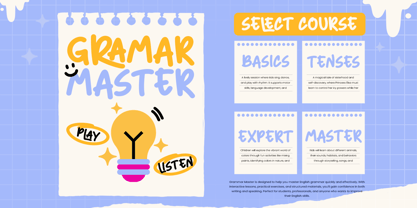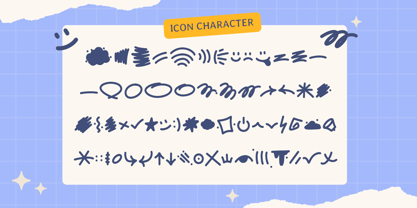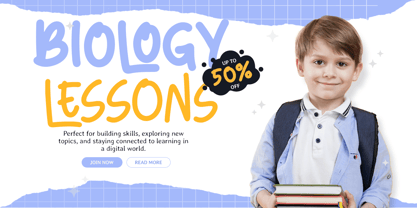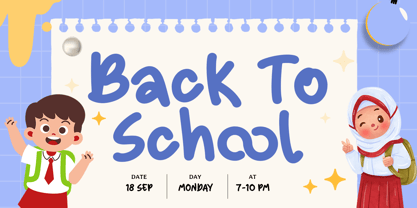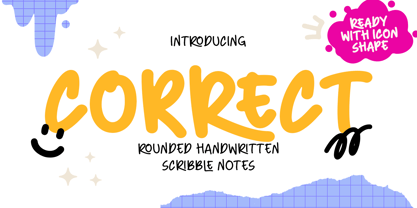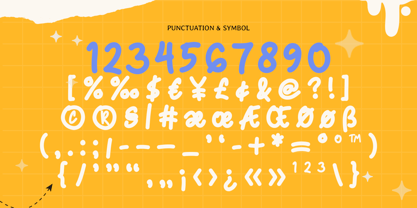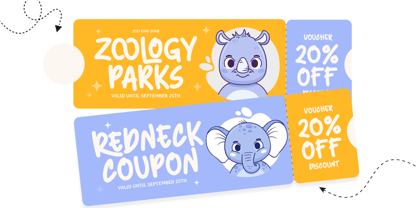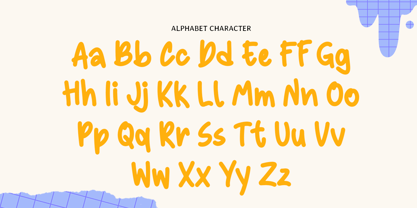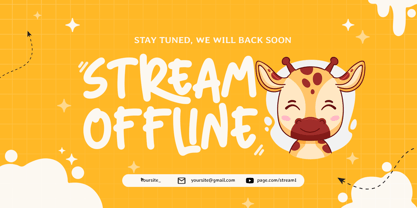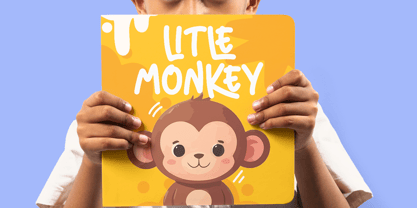
Correct
The Correct Font Family was designed by Zamroni Hamzah and published by Sensatype Studio. Correct contains 2 styles and family package options. More about this family
Correct is a rounded handwritten scribble notes font designed to feel natural, cozy, and full of personality. With soft rounded strokes and a spontaneous scribble rhythm, this typeface delivers an authentic handwritten vibe that’s perfect for everyday creativity and warm, friendly branding.
Made for notes, journaling, planners, and printable designs, Correct works beautifully on notebook covers, stickers, labels, quotes, classroom materials, and cute social media content. Its rounded look keeps everything approachable and fun, while the scribble energy adds an honest, human touch to your typography.
Whether you’re building a stationery brand, designing digital planners, creating craft products, or making playful packaging, Correct helps your designs feel personal, cheerful, and effortlessly charming across both print and digital projects.
Correct – Rounded Scribble Notes Features
• Rounded handwritten letterforms with cute scribble personality
• Available with 4 variations: Regular, Bold, Icons, and Icon Alternates
• Perfect for notes, planners, journals, and stationery designs
• Great for stickers, labels, quotes, and cozy packaging
• Friendly look for kids projects and classroom materials
• Includes uppercase, lowercase, numerals, and punctuation
• Clear readability for digital screens and print output
• OpenType features for smoother, flexible typography
Make every note feel sweeter with CORRECT—built for rounded scribbles and lovable handwritten charm. 🍯📝